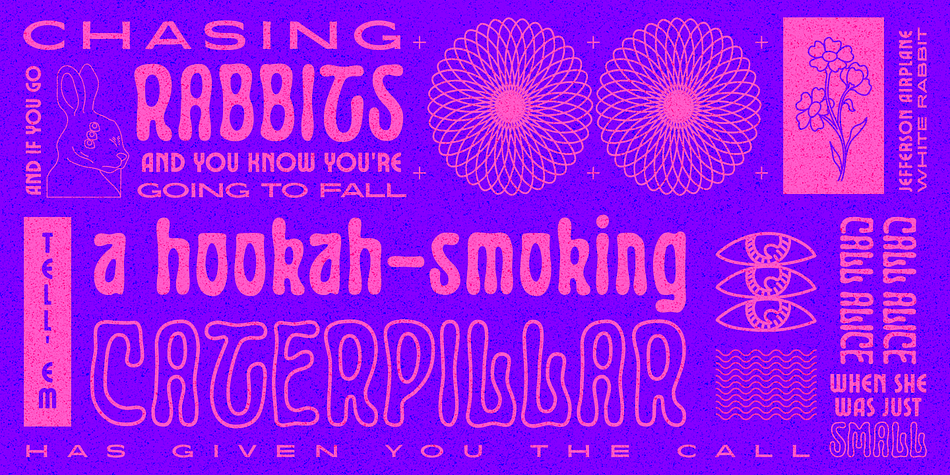
Lucidity
Designed by Ricky Rinaldi, Lucidity is a display sans, retro and dingbat font family. This typeface has six styles and was published by Aiyari.
Introducing a new Pcychedelia font trio called Lucidity. Embracing the pcychedelia era combine with modern touch. Lucidity font family came with open type features such as stylistic alternates & ligatures.
Foundry Aiyari
Styles Display Sans, Retro, Dingbat
Designer Ricky Rinaldi